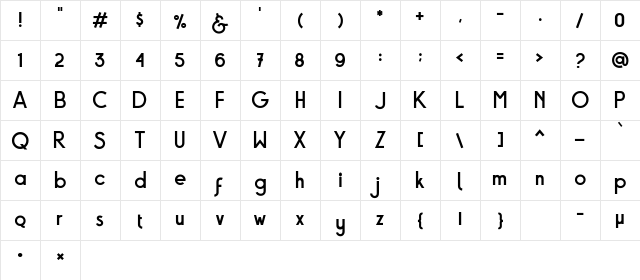
Baxoe Regular
| Designer | 160 Studio |
Design Context for Baxoe Typeface
Baxoe offers clean, dependable letterforms without strong stylistic allegiance, making it a practical choice for designers who need flexibility.